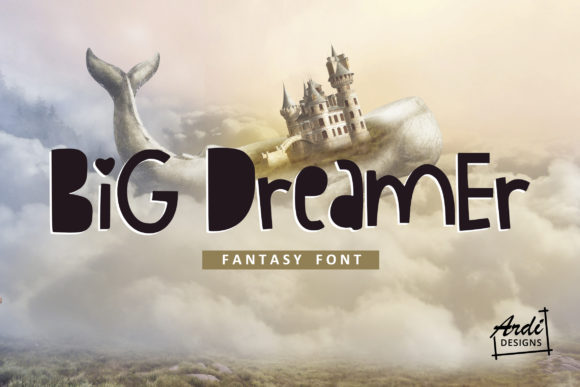
The Big Dreamer Font: A Cute Display Font to Bring Your DIY Projects to Life!
I’ll never forget the moment I stumbled upon the perfect font for a client’s DIY project. It was a custom craft business, and they needed a font that would make their handmade products stand out. After hours of searching, I finally found **Big Dreamer**, a cute display font that exceeded my expectations. Its unique charm and playful vibe instantly elevated the project, and my client was thrilled!
If you’re a designer, crafter, or creative hobbyist looking for a font that will bring your DIY projects to life, you’re in the right place. In this article, we’ll dive into the world of Big Dreamer, exploring its features, how to use it on different platforms, and some similar fonts you might love.
An Honest Review of Big Dreamer Font
What I Love About Big Dreamer ✨
• ✅ Unique and playful design that adds a personal touch to any project
• ✅ Highly legible, even at larger font sizes
• ✅ Versatile and suitable for a wide range of DIY projects, from crafting to branding
• ✅ Easy to pair with other fonts for a cohesive look
• ⚠️ Limited suitability for body text due to its display font nature
• ⚠️ Some characters may require manual kerning for optimal spacing
3. Experiment with OpenType features, such as glyphs and stylistic alternates, to add visual interest
The Story Behind Big Dreamer Font
Big Dreamer was designed with creativity and playfulness in mind. Its creator, a passionate typographer, aimed to craft a font that would inspire makers and DIY enthusiasts to bring their ideas to life. With its unique blend of elegance and whimsy, Big Dreamer has become a go-to font for crafty projects and handmade products.
Font Name Big Dreamer Font
Author ArdiDesigns
Q: What type of projects is Big Dreamer suitable for?
A: Big Dreamer is perfect for DIY projects, crafting, branding, and handmade products. Its playful and unique design makes it ideal for creative and artistic endeavors.
Q: Is Big Dreamer a difficult font to read?
A: No, Big Dreamer is highly legible, even at larger font sizes. Its clear and playful design makes it easy to read and understand.